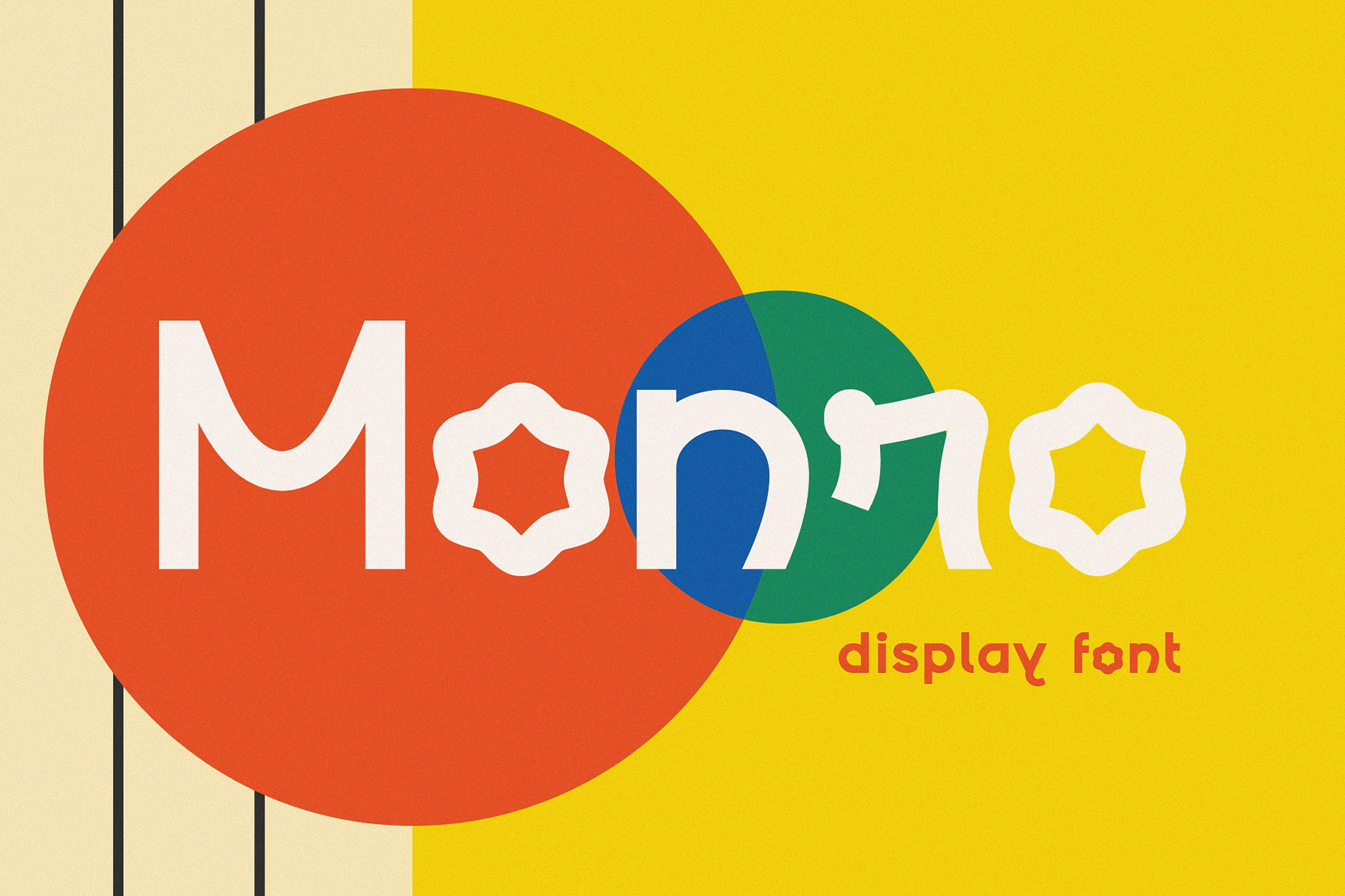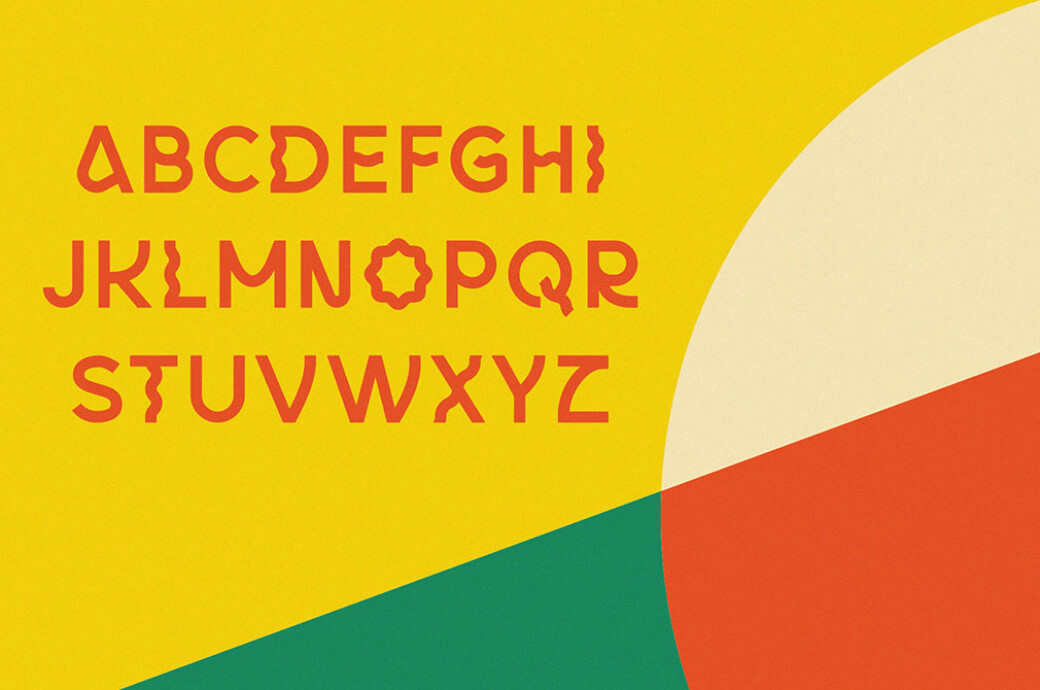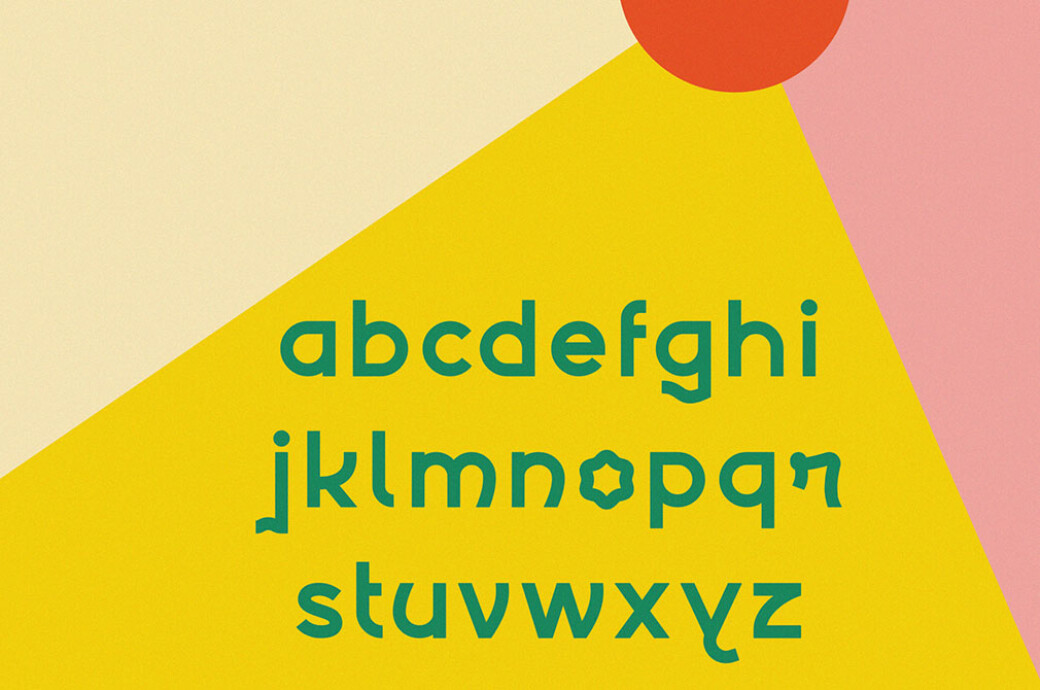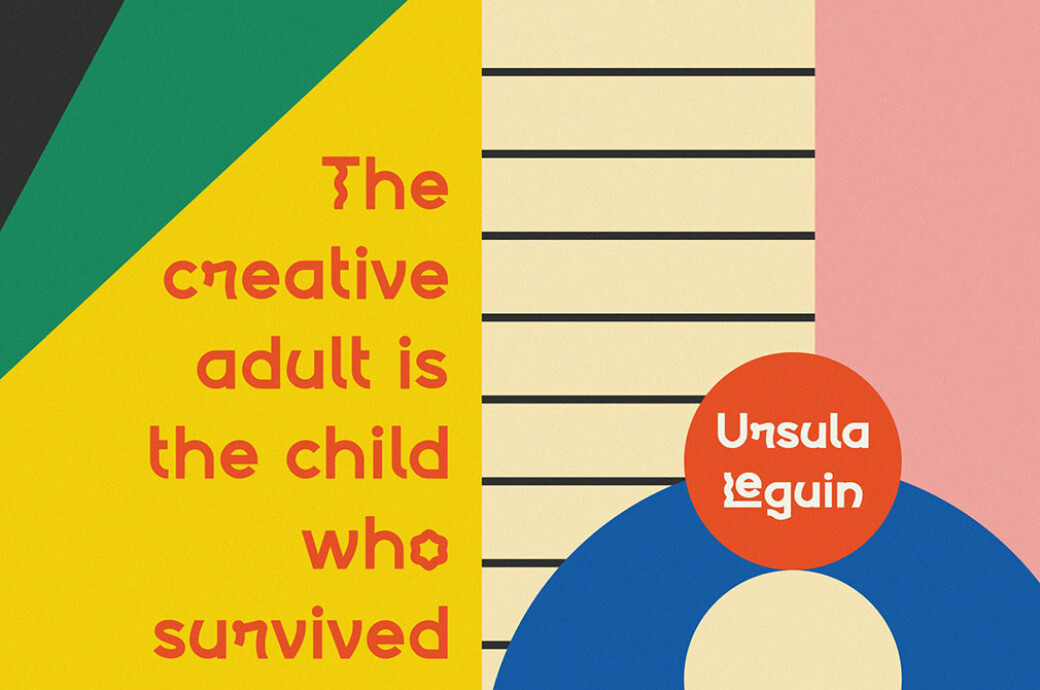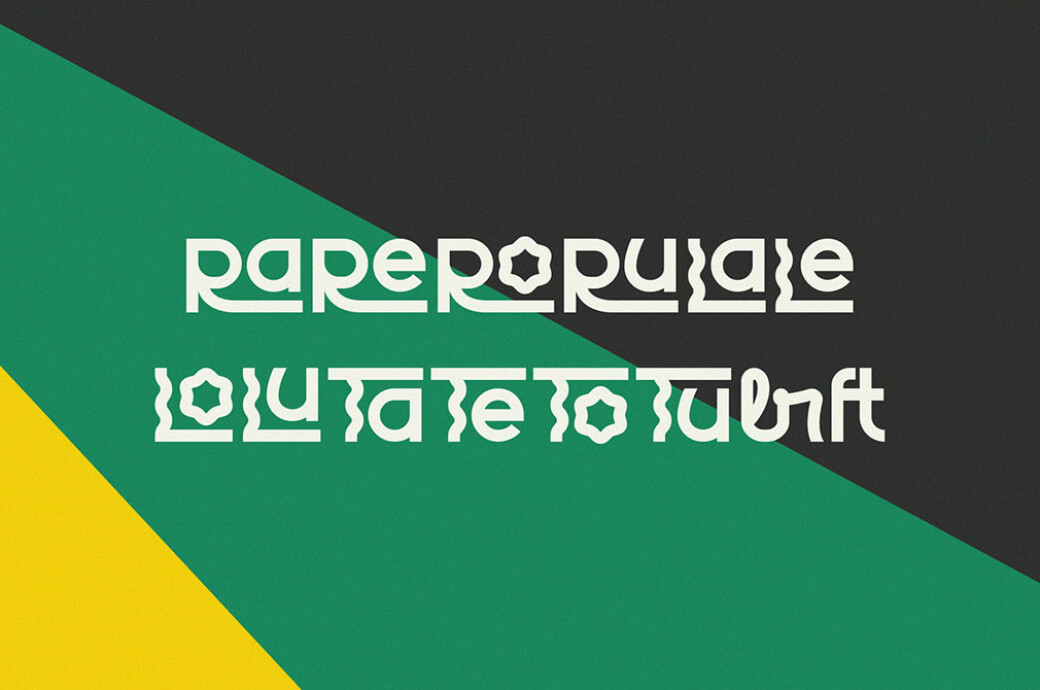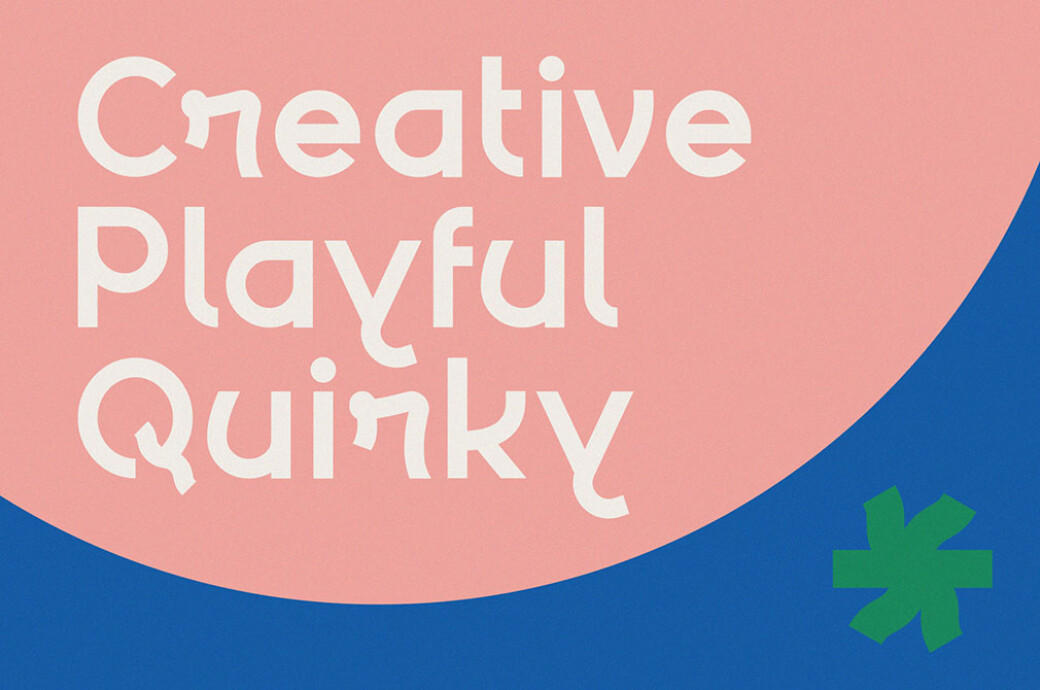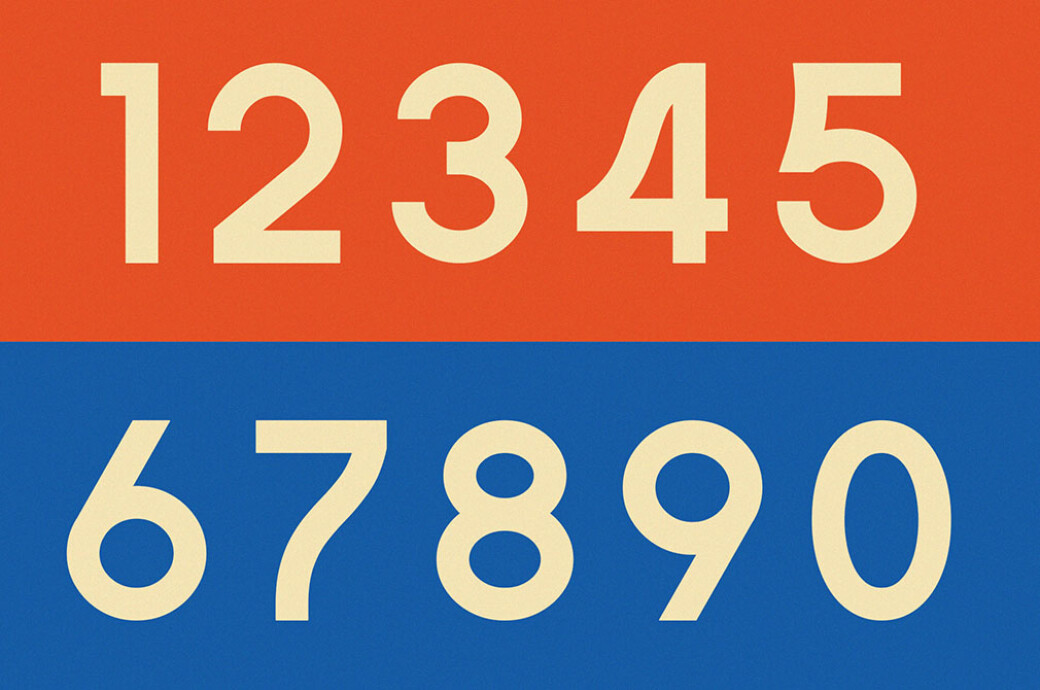
Monro Quirky Font
Not a single sign of retro pin-up style, but loads of funky-flirty vibes — that's the Monro, our brand new display font that won't leave a single designer's heart cold.Monro is a disruptive typeface with dynamic shapes inspired by the aesthetics of the 80s and 90s. Without a doubt, this is an ideal pick for large-size texts and wordmarks, as its eye-catching quirky letters grab the viewer's attention and make them notice the message being sent across. The font includes uppercase and lowercase letters, stylistic alternates and numerals. Monro is also perfect for contemporary branding, social media, flyers, headlines, magazines, and more. In a nutshell, whenever you want a scenic geometric type that's clean and sleek as well, Monro is an option with no rivals.